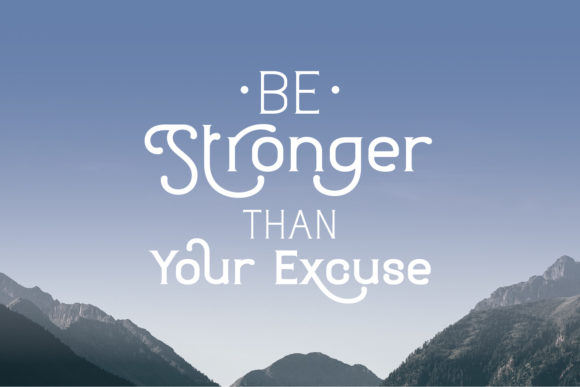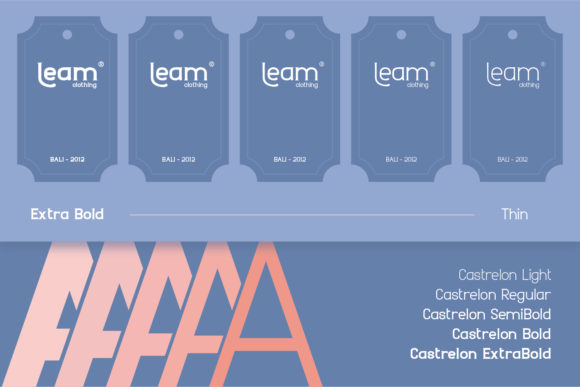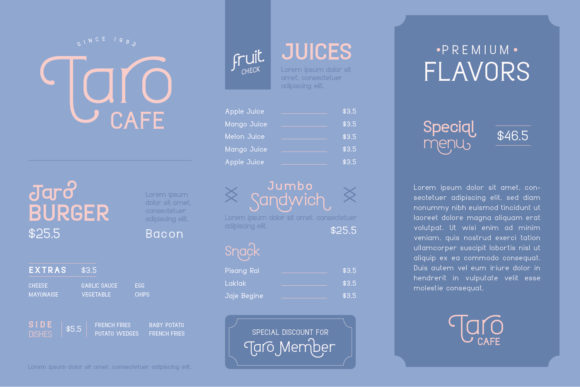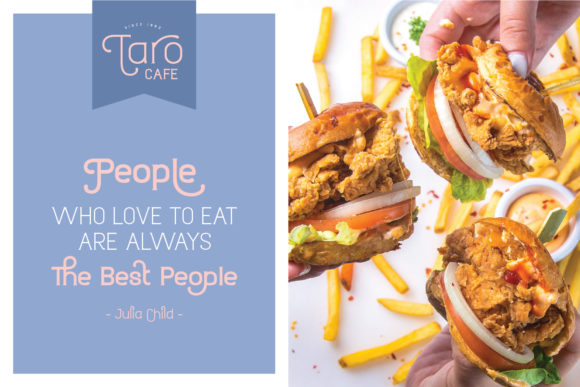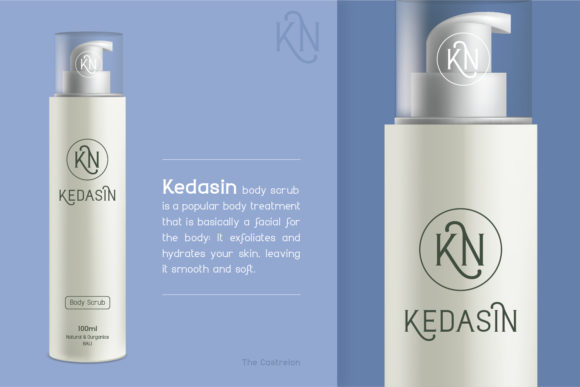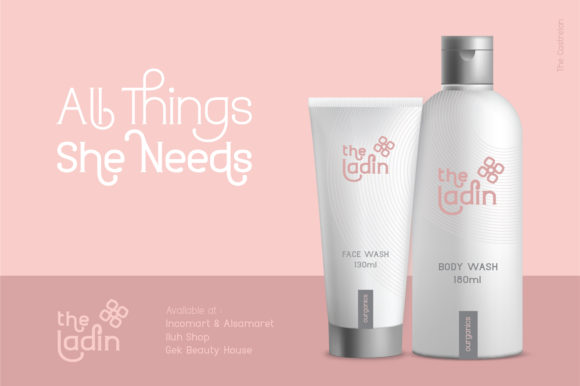
Have you ever been stuck in front of your computer screen, staring at a blank canvas, waiting for inspiration to strike? That’s where I was the last time I needed to create a design that would stand out from the crowd. The words ‘perfect font’ kept echoing in my mind, until I stumbled upon the amazing Castrelon Font.
Castrelon Font is a vintage-inspired display font that exudes an organic, laid-back charm. Its unique design makes it perfect for both formal and informal design projects. Whether you’re working on a branding project, a magazine cover, or a social media campaign, this font is sure to add a touch of personality to your work.
For designers, having access to a versatile font like Castrelon Font is invaluable. It allows you to experiment with different styles and moods, making your designs more engaging and memorable. With its wide range of applications, Castrelon Font is a must-have in any designer’s toolkit.
Castrelon Font Key Features
- Font Family: Castrelon is a sans-serif font family that offers a modern and clean look.
- Size: Castrelon comes in a range of font sizes, including 12, 14, 16, 18, 20, 24, 30, 36, 48, and 60 points.
- Resolution: Optimized for use at high resolutions, making it suitable for digital displays and printing.
- Unique Characteristics: Castrelon features a unique blend of geometric and organic elements, giving it a distinctive look that is both modern and timeless.
- Language Support: Supports a wide range of languages, including Latin, Greek, Cyrillic, and many non-Latin scripts.
Castrelon Font Review
First off, I love the unique character of the Castrelon Font. ✨ It’s a great choice for anyone looking for something a bit different from the standard sans-serif fonts. The font is a bit quirky and offbeat, which can be a great fit for projects that need a touch of personality.
The Castrelon Font is highly legible, even at smaller font sizes. ✨ It’s also great for headings and titles, as it’s clear and concise. The font family is quite versatile, with a range of weights and styles to choose from.
- ⚠️ The Castrelon Font can be a bit too quirky for some projects. If you’re looking for a font that’s more professional or straightforward, this might not be the best choice.
- ⚠️ The font may not be suitable for very long blocks of text, as the irregularities can make it difficult to read.
Overall, I think the Castrelon Font is a great choice for projects that need a bit of flair and personality. While it may not be suitable for every project, it’s a great option for those looking for something unique and eye-catching.
Tips: Use the Castrelon Font for creating elegant and sophisticated designs, such as invitation cards, business cards, and wedding invitations.
Tips: Use the Castrelon Font for creating high-end designs, such as logos, brochures, and magazines.
Tips: Use the Castrelon Font for creating professional-looking presentations, reports, and documents.
The Castrelon Font is ideal for:
1. Elegant invitations and event materials.
2. High-end logos and branding materials.
3. Professional presentations and reports.
4. Magazine and brochure design.
Alternatives to Castrelon Font
Oswald Font is a sans-serif typeface designed by Vernon Adams. It’s ideal for use in headings, titles, and short paragraphs where a clean and modern look is desired. Oswald Font is more geometric and has a stronger contrast between thick and thin lines compared to Castrelon Font.
Montserrat Font is a sans-serif typeface designed by Julieta Ulanovsky. It’s suitable for use in urban and modern designs where a strong, geometric feel is required. Montserrat Font is more condensed and has a higher x-height compared to Castrelon Font, making it ideal for use in small spaces.
Playfair Display Font is an elegant serif typeface designed by Claus Eggers Sørensen. It’s perfect for use in luxury brands, high-end products, and creative projects where a sophisticated and refined look is desired. Playfair Display Font is more ornate and has a higher contrast between thick and thin lines compared to Castrelon Font, making it ideal for use in titles and headings.
What is the recommended font size and line height for using the Castrelon font?
For optimal readability, we recommend using the Castrelon font at a minimum size of 12 points and a line height of 1.5 times the font size. This will help ensure that the text is clear and easy to read, even at smaller font sizes. You can adjust these settings to suit your specific design needs and preferences.